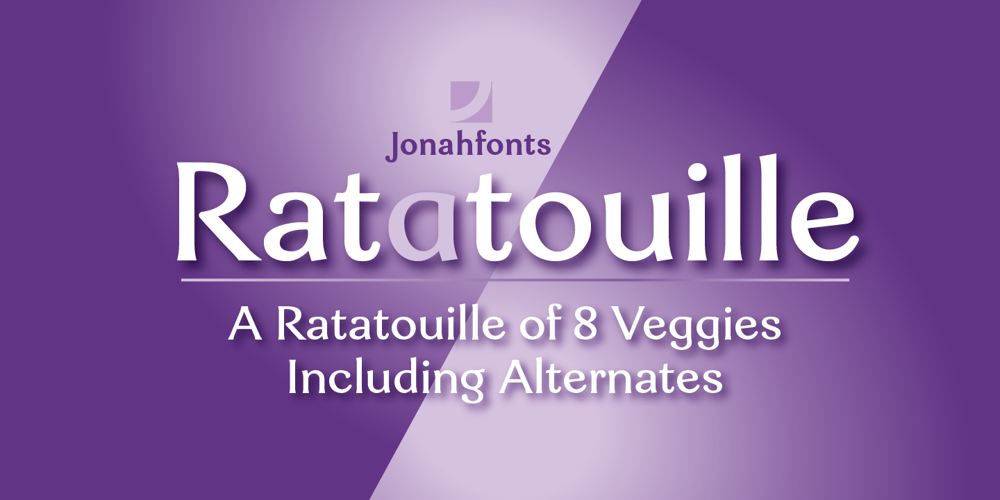
Ratatouille Font Family was designed by John Nahmias and published by Jonahfonts. Ratatouille contains 8 styles and family package options. Ratatouille was inspired by wooden faces of old with pointed serifs. Very suitable for Packaging greeting cards magazines posters and Advertising Ads. Designed in four weights from Extra-Light to Bold including Italics, covering a large range of editorial and advertising applications.